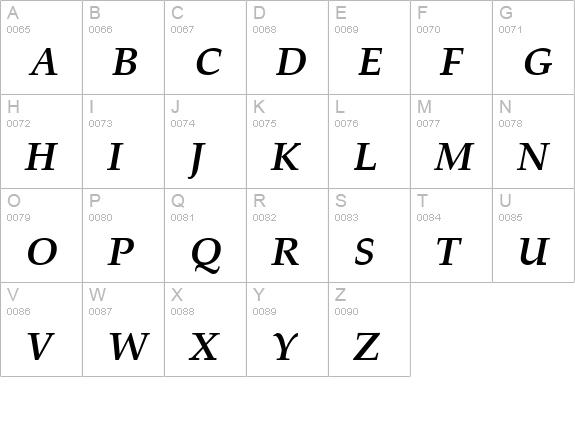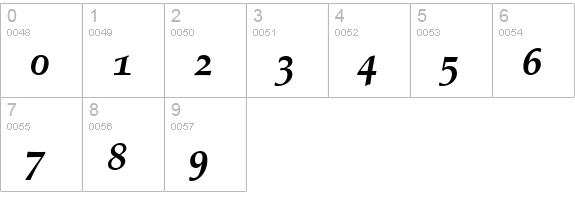
Criteria SSi Bold Italic Old Style Figures is a strong, high-contrast, italic variant in the Criteria typeface family \xE2\x80\x94 well suited to headlines, attention-grabbing titles, and strong calls-to-action.
The Criteria SSi Bold Italic Old Style Figures font is a striking and sophisticated typeface that exudes elegance and charm. Its bold and italic design adds a touch of modern flair to any project while maintaining a classic and timeless appeal with its old-style figures. Perfect for adding a touch of sophistication to invitations, branding, and editorial designs, this font effortlessly combines traditional elements with a contemporary twist. The Criteria SSi Bold Italic Old Style Figures font is not only visually captivating but also highly versatile, making it a valuable addition to any designer's toolkit. Whether you're working on a formal event invitation or a sleek magazine layout, this font is sure to make a statement and leave a lasting impression. Best of all, the Criteria SSi Bold Italic Old Style Figures font is available for free download at FontsMarket.com. Now you can elevate your design projects with this stunning font without breaking the bank. Don't miss out on the opportunity to enhance your work with this beautiful and versatile typeface today!